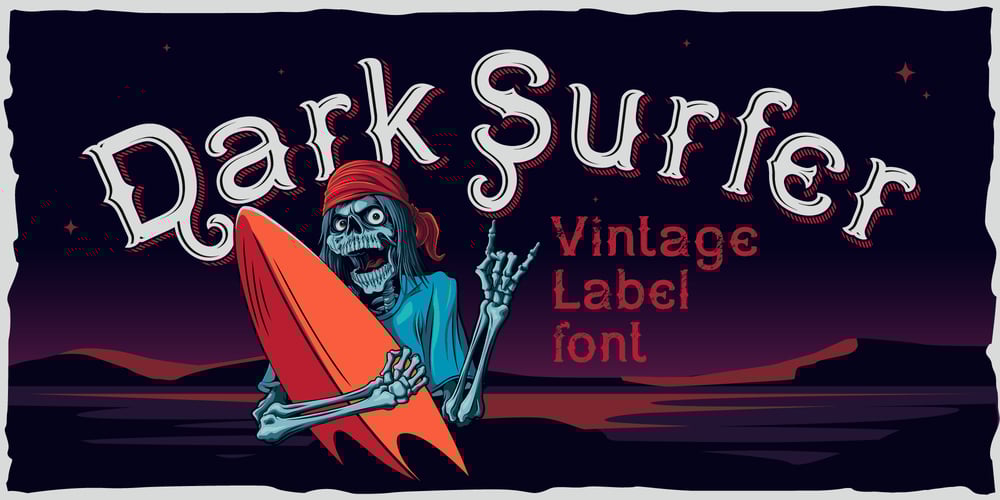
Dark Surfer Font Family was designed by Evgeny Dneprovsky and published by Fractal Font Factory. Dark Surfer contains 6 styles and family package options. Dark surfer. A sleek, layered, vintage-style font.It contains 6 writing styles, basic characters, numbers, punctuation and multilingual characters for all styles.